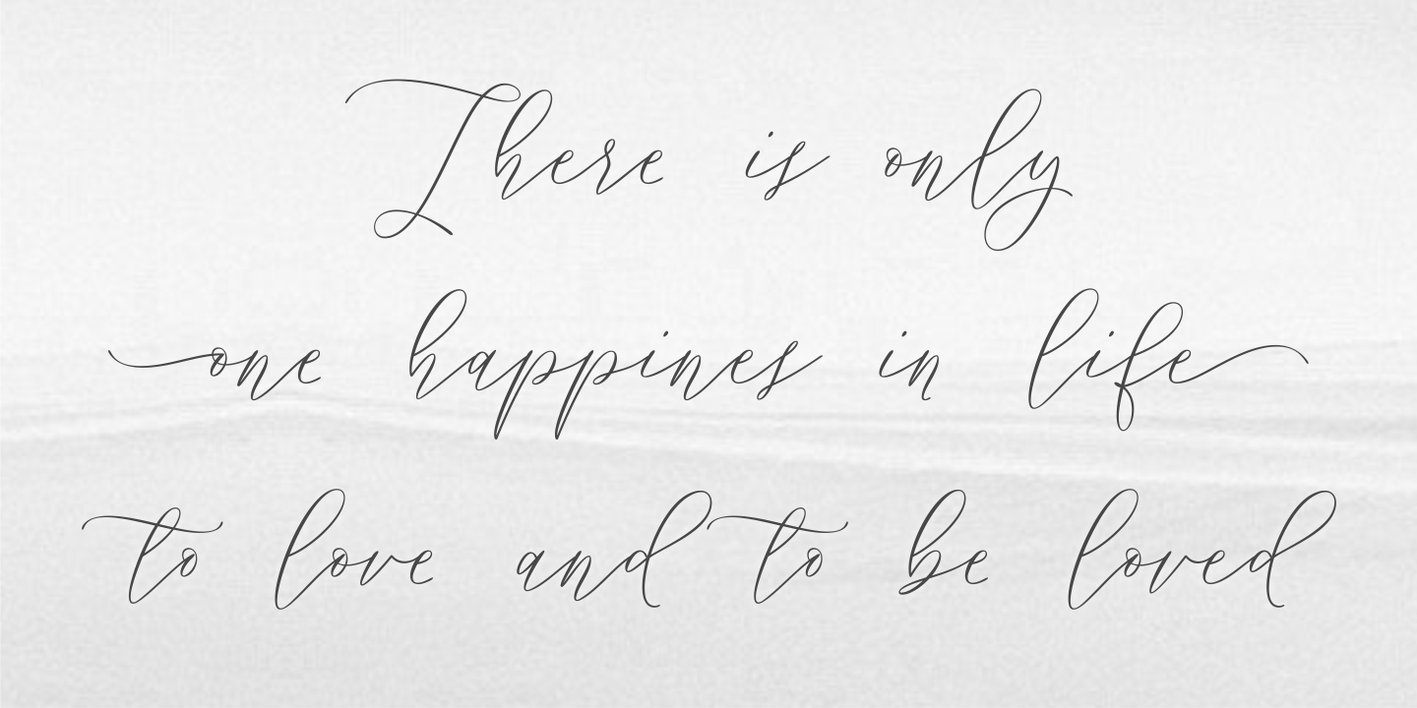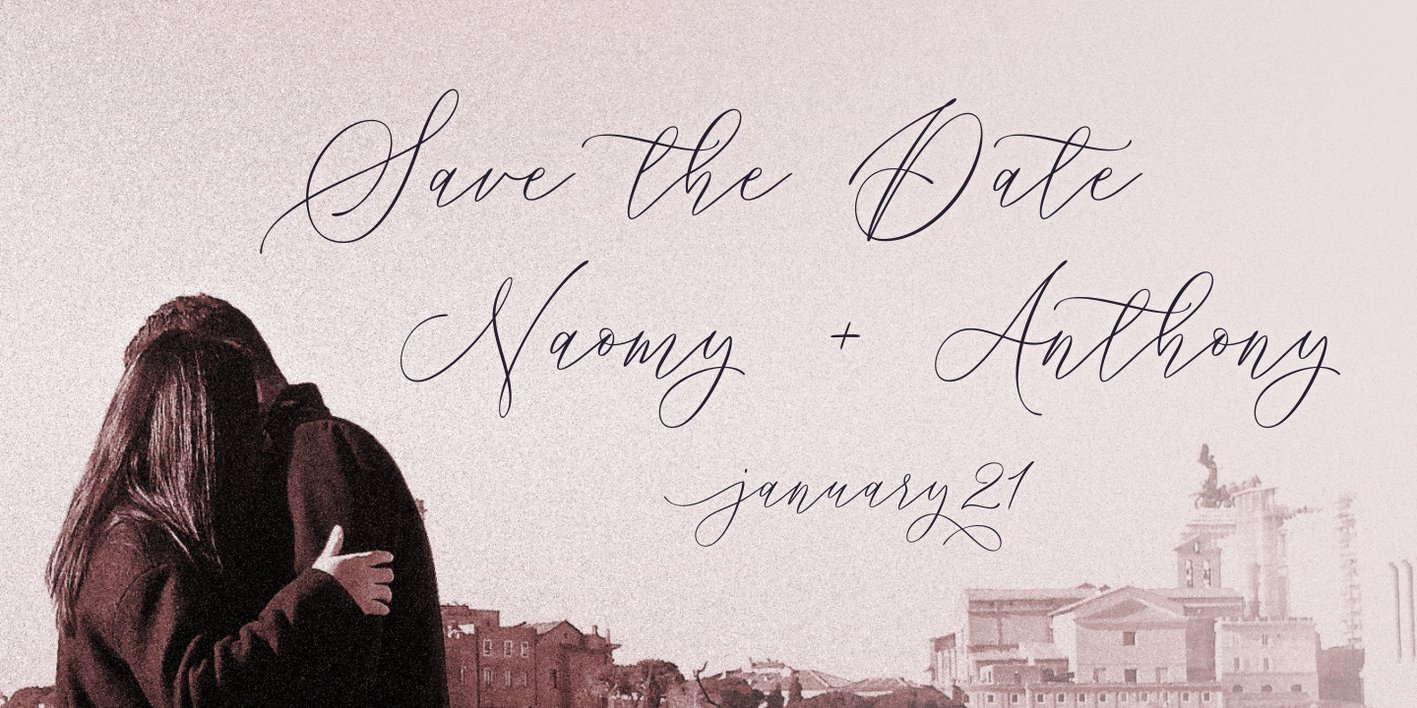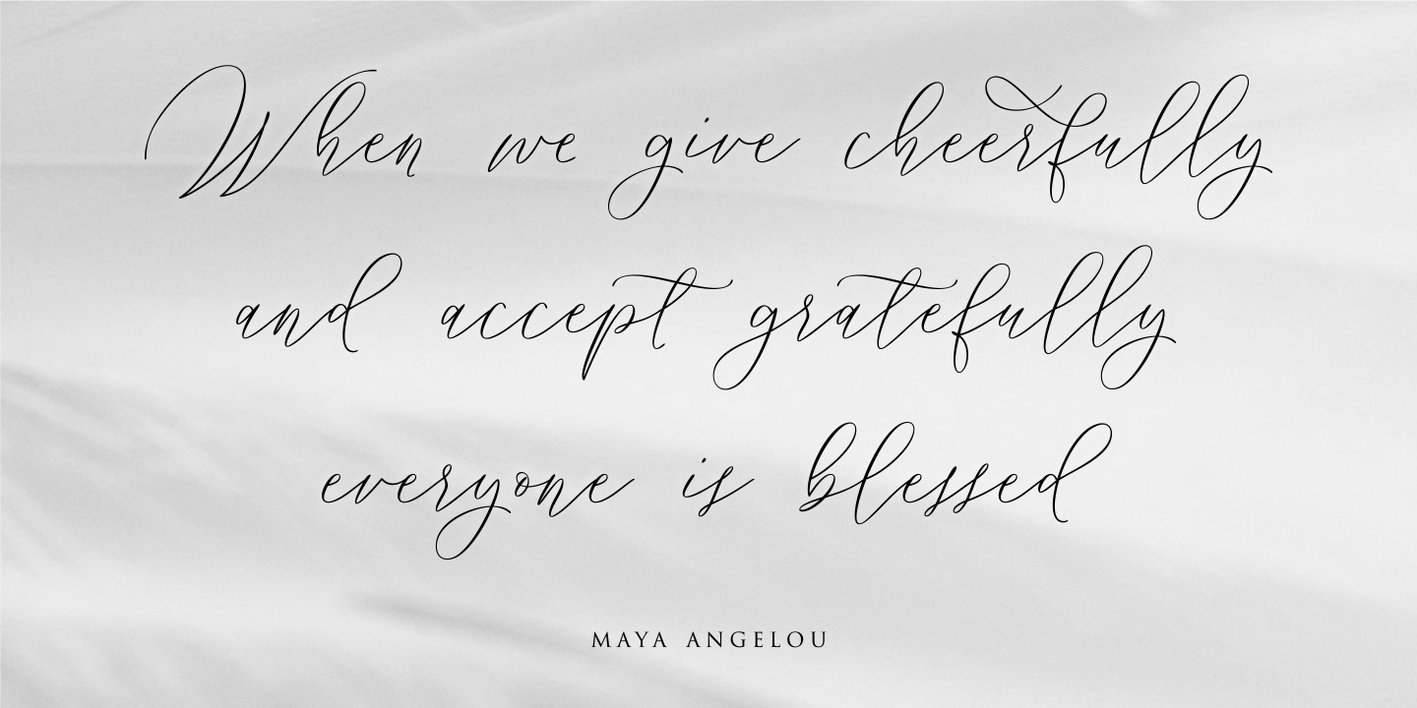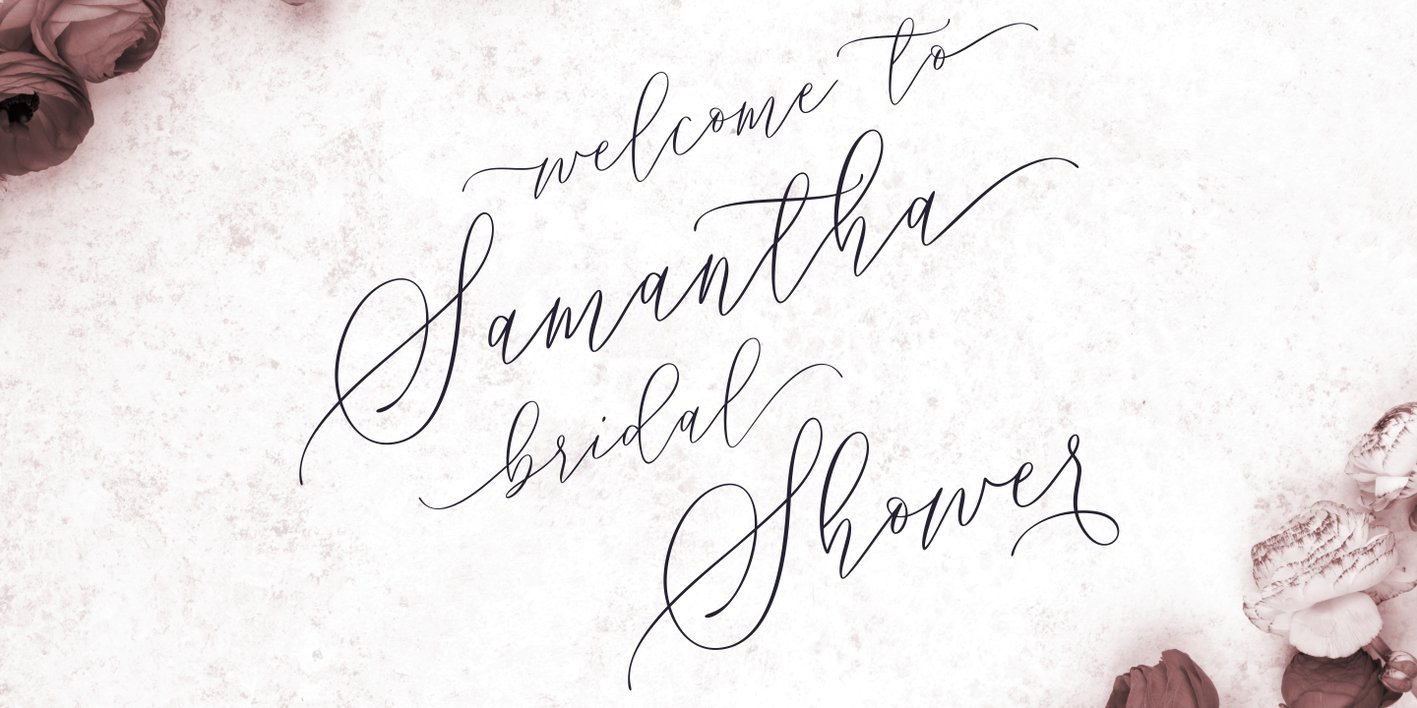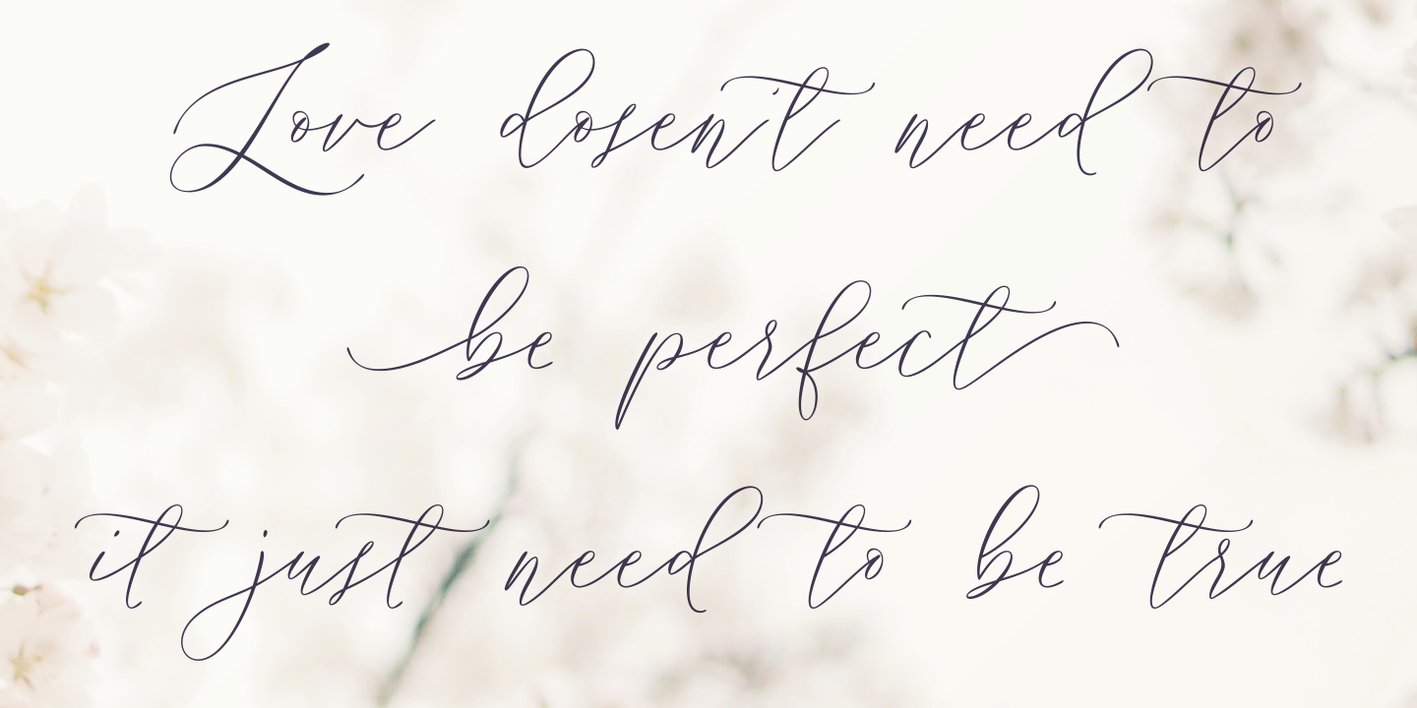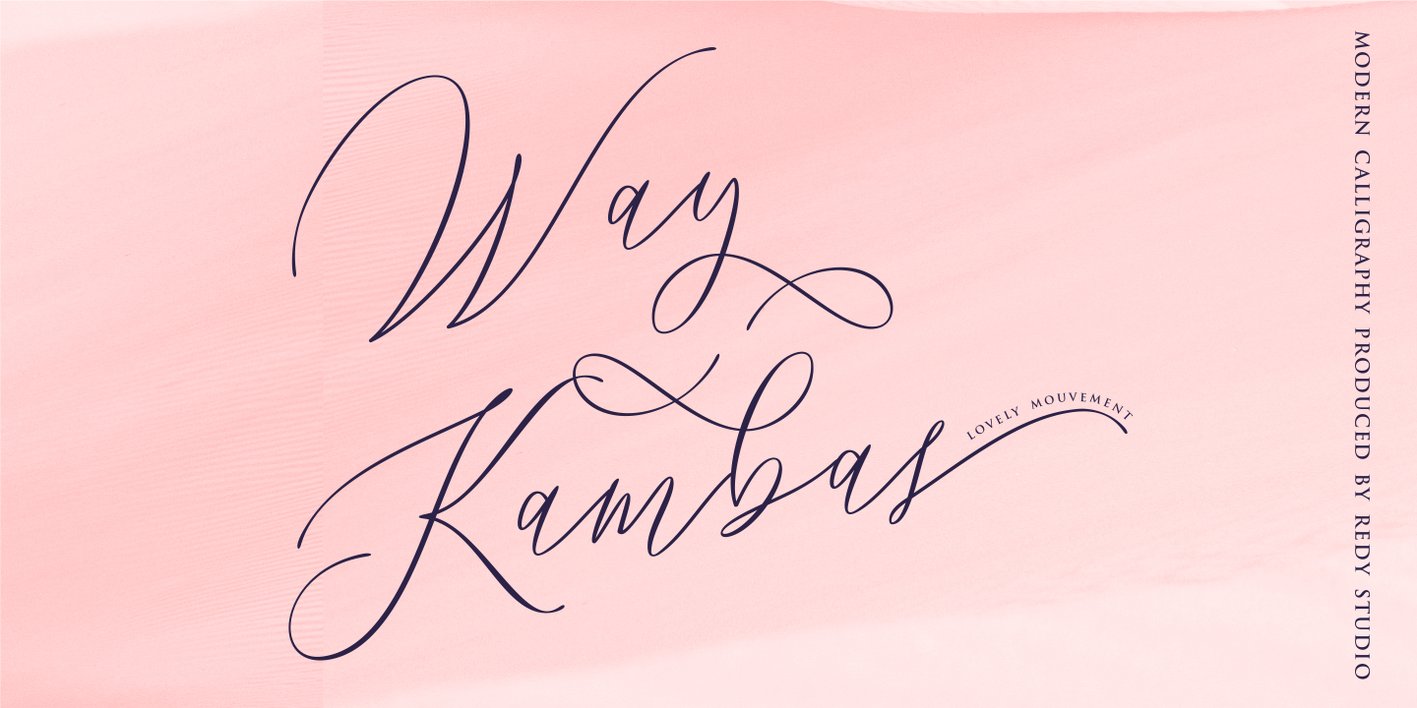
Way Kambas Font
Way Kambas Font is perfect for wildlife conservation materials, national park signage, jungle adventure tourism, elephant sanctuary branding, rainforest preservation campaigns, eco-tourism promotions, safari expedition graphics, Indonesian nature reserves, tropical wildlife documentaries, conservation organization materials, endangered species awareness campaigns, and wild projects that require natural, adventure-inspired typography with tropical authenticity and conservation appeal.
What makes Way Kambas Font so exciting is its wild natural spirit and conservation-focused authenticity that captures the untamed beauty of Indonesian rainforests and the urgent mission of wildlife preservation. This typeface features organic letterforms with jungle-inspired characteristics and natural texture variations that evoke the lush biodiversity and pristine wilderness of protected nature reserves. The font's conservation character and tropical appeal make it perfect for environmental organizations and eco-tourism brands that want to communicate wilderness protection, natural heritage, and the kind of environmental consciousness that inspires wildlife conservation and sustainable tourism.
Way Kambas Font typically comes in multiple weights and styles including Light, Regular, Medium, and Bold variations. Many versions also include nature symbols, wildlife ornaments, and conservation-themed decorative elements that enhance the font's environmental functionality and provide designers with comprehensive tools for creating authentic, jungle-inspired typography compositions that honor biodiversity and natural preservation.
Protect nature's heritage with the wild authenticity of Way Kambas Font Free Download. This conservation-focused typeface brings together tropical wilderness aesthetics with contemporary environmental messaging, making it an essential tool for conservation organizations and eco-tourism professionals that need to create memorable, environmentally compelling communications that resonate with audiences seeking wildlife protection and sustainable nature experiences. The font's wild character ensures your conservation projects will convey environmental urgency and natural authenticity.
Whether you're designing wildlife conservation campaigns, eco-tourism materials, or nature preservation communications, Way Kambas Font delivers exceptional natural authenticity and conservation appeal that connects with audiences who value environmental protection and wildlife preservation. Its organic, jungle-inspired appearance works beautifully with natural color palettes and wildlife imagery, creating designs that feel both wild and professionally conservation-focused.
The naturally crafted letterforms of Way Kambas Font demonstrate deep understanding of environmental typography and conservation communication needs. Each character has been designed to capture the wild beauty and environmental urgency of rainforest conservation while maintaining excellent readability, making it particularly valuable for conservation communications where typography must convey both natural authenticity and environmental action messaging.